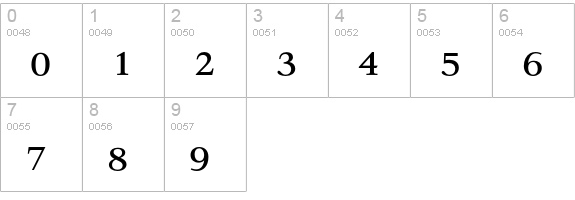
DTL Romulus T Medium is a balanced, medium-weight variant in the DTL typeface family \xE2\x80\x94 well suited to sub-headlines, navigation, and balanced editorial work.
The DTL Romulus T Medium font is a versatile and elegant typeface that exudes sophistication and modernity. Its clean lines and balanced proportions make it perfect for a wide range of design projects, from branding to editorial design. The medium weight of this font strikes the perfect balance between boldness and readability, making it suitable for both headlines and body text. What sets DTL Romulus T Medium apart is its timeless appeal and versatility. Whether you're designing a sleek corporate identity or a stylish editorial layout, this font will elevate your work to a new level of professionalism. Best of all, DTL Romulus T Medium is available for free download at FontsMarket.com. Now you can access this high-quality font without breaking the bank, making it an excellent choice for designers looking to elevate their projects without compromising on quality. Don't miss out on the opportunity to add this exceptional typeface to your design toolkit today.